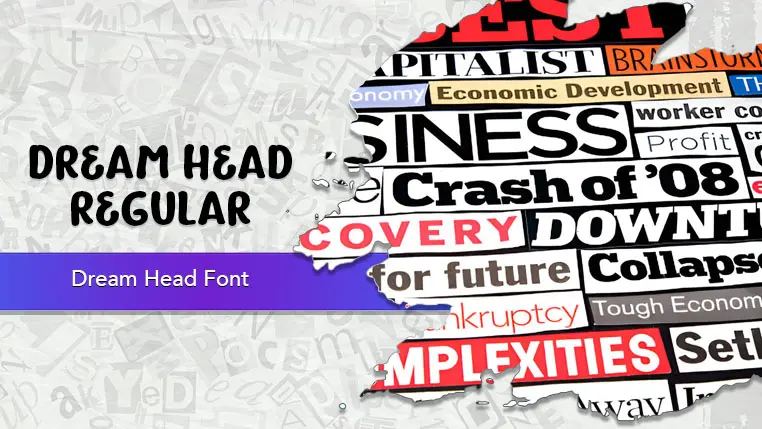
The Dream Head font family may be ideal for you if you enjoy working on an artistic design project. The lively, expressive look of this typeface, which was created by Eko Bimantara, makes it ideal for Playful Branding and Logos, Children's Books and Media, Social Media Graphics and Headlines and Titles because Its bold, distinctive, and slightly irregular forms make it excellent for headlines, titles, and short phrases where you want to make a strong visual statement and grab attention. and other light-hearted visual projects.
Regular are the one primary font styles of the Dream Head font family. You may build dynamic, visually appealing text layouts with the distinct flair that each style offers. With crisp, readable lines and a relaxed tone.